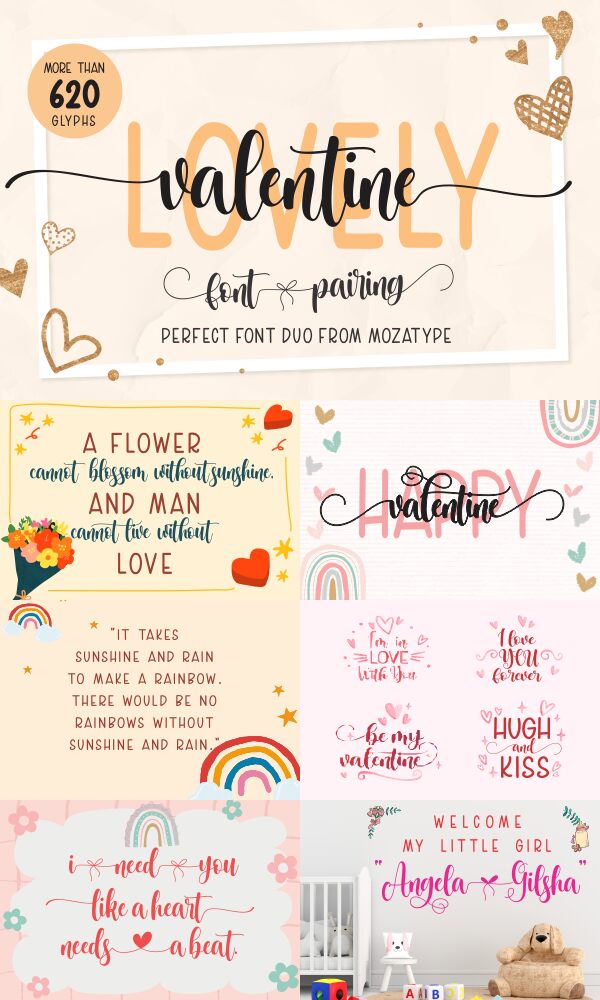
Lovely Valentine Sans, designed by Mozatype, is a delightful and charming font that brings a touch of whimsy to any project.
With its comic-inspired style and semi-light weight, this font is perfect for creating playful and romantic designs. Its semi-condensed width adds a modern twist, making Lovely Valentine Sans suitable for a diverse range of projects. Use it to add a touch of sweetness to greeting cards, wedding invitations, children's books, or even social media graphics.
Let Lovely Valentine Sans bring love and joy to your next creative endeavor.